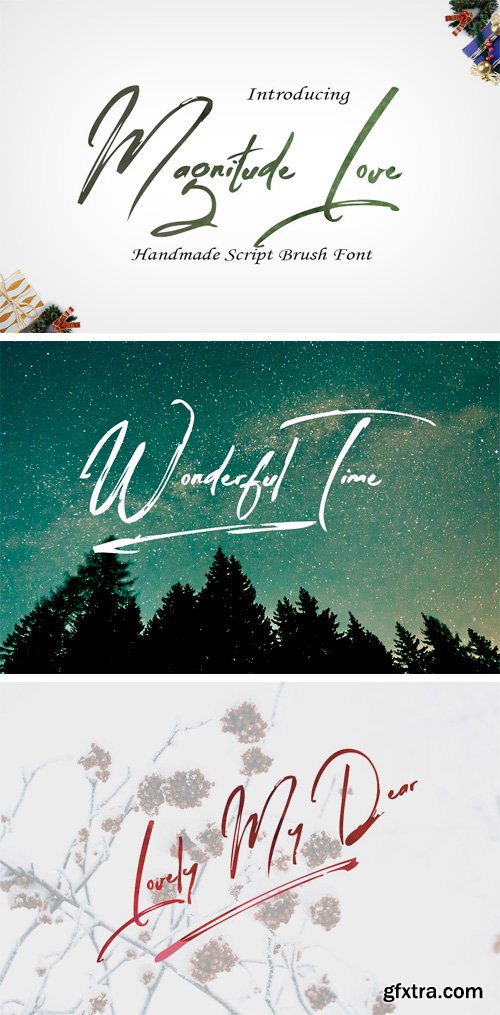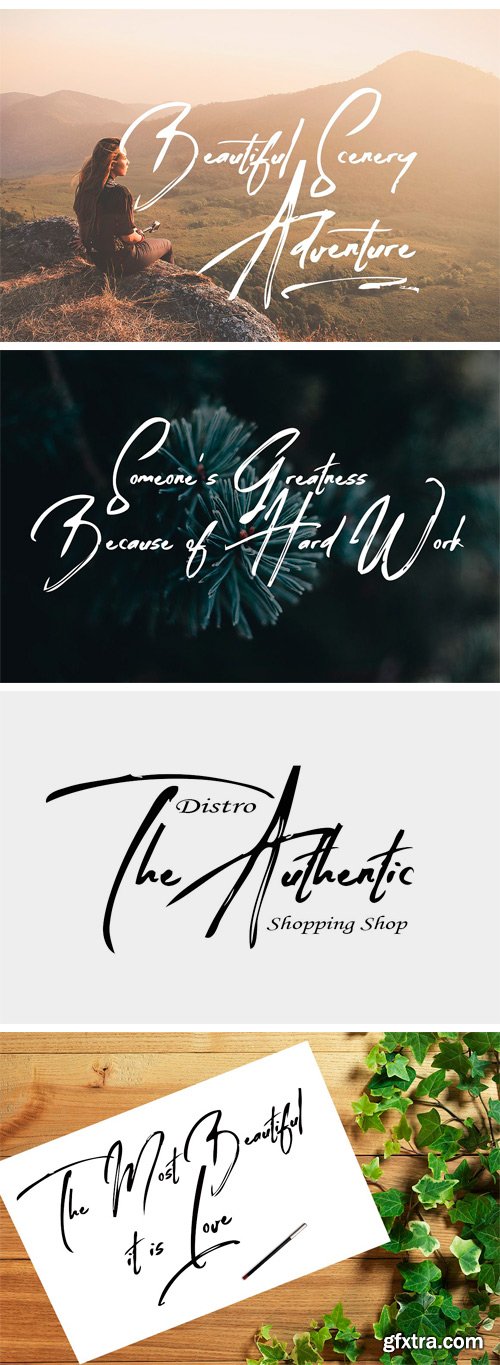
CM - Magnitude Love 2084817
Magnitude Love! A rustic, dapper handwritten font with a personal charm. With quick dry strokes and a signature style, Magnitude Love is perfect for branding projects, homeware designs, product packaging - or simply as a stylish text overlay to any background image.